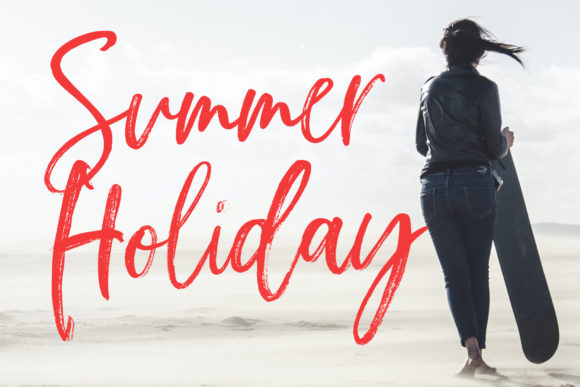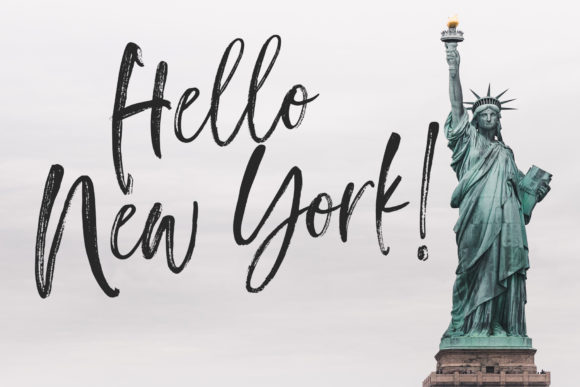
Hangster Font
db-ku.com - Script & Handwritten -- Hangster is a cool brushed handwritten font. It is suitable for designs such as t-shirts, sportswear, logos, advertisements, clothing, and more.